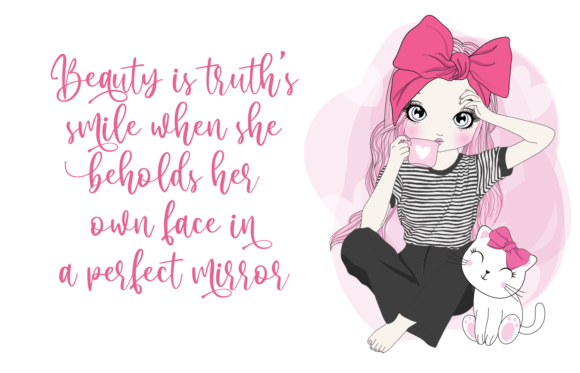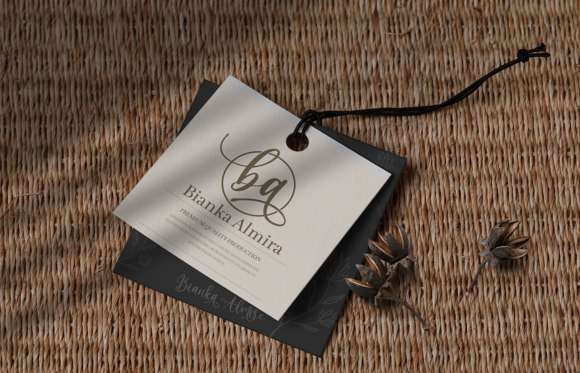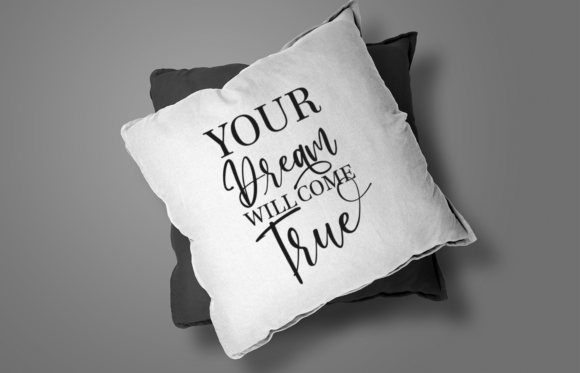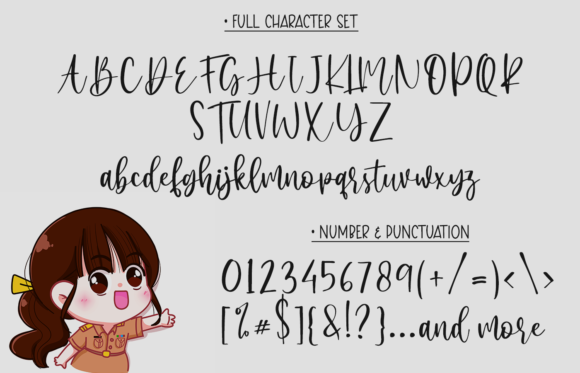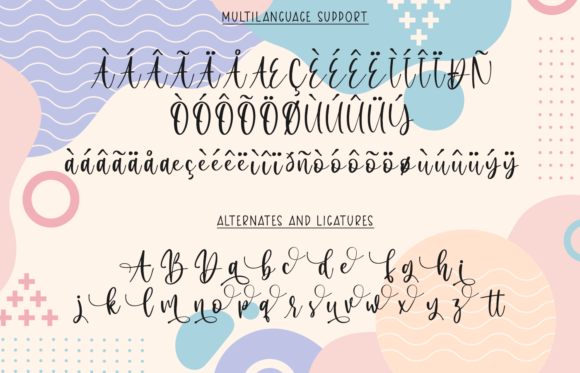
Discover the Charm of Agirly Font: A Cute Script Font for Your Creative Projects
Are you a designer or crafter looking for a font that adds a personal and realistic touch to your designs? Look no further than Agirly Font, a cute script font that’s perfect for a variety of creative projects. In this article, we’ll explore the features and benefits of Agirly Font, and show you how to make the most of its endless possibilities.
What is Agirly Font?
Agirly Font is a beautiful, hand-crafted script font that’s designed to add a touch of elegance and sophistication to your designs. Its authentic look and feel make it perfect for creating personalized and realistic designs that stand out from the crowd. Whether you’re working on a branding project, a craft, or a digital design, Agirly Font is the perfect choice.
Key Features of Agirly Font
- Cute and Playful Design: Agirly Font has a unique and playful design that’s perfect for creating fun and engaging designs.
- PUA Encoded: Agirly Font is PUA encoded, which means you can access all of the glyphs and swashes with ease.
- Endless Possibilities: With Agirly Font, you can create a wide range of designs, from invitations and greeting cards to branding and digital designs.
- Personal and Realistic Feel: Agirly Font’s authentic look and feel make it perfect for creating personalized and realistic designs.
Benefits of Using Agirly Font
So, why choose Agirly Font for your creative projects? Here are just a few benefits of using this amazing font:
- Stand Out from the Crowd: With Agirly Font, you can create designs that stand out from the crowd and grab attention.
- Easy to Use: Agirly Font is easy to use and comes with a range of features that make it simple to access and use the glyphs and swashes.
- Versatile: Agirly Font is versatile and can be used for a wide range of creative projects, from digital designs to crafts and invitations.
- High-Quality Design: Agirly Font has a high-quality design that’s perfect for creating professional-looking designs.
How to Use Agirly Font
Using Agirly Font is easy! Here are a few tips to get you started:
- Access the Glyphs and Swashes: With Agirly Font’s PUA encoding, you can access all of the glyphs and swashes with ease.
- Experiment and Have Fun: Don’t be afraid to experiment and try out different design ideas with Agirly Font.
Ideas for Using Agirly Font
So, what can you create with Agirly Font? Here are a few ideas to get you started:
- Invitations and Greeting Cards: Agirly Font is perfect for creating personalized invitations and greeting cards.
- Branding and Logo Design: Use Agirly Font to create a unique and memorable brand identity.
- Digital Designs: Agirly Font is perfect for creating digital designs, such as social media graphics and blog posts.
- Crafts and DIY Projects: Agirly Font is a great choice for crafters and DIY enthusiasts who want to add a personal touch to their projects.